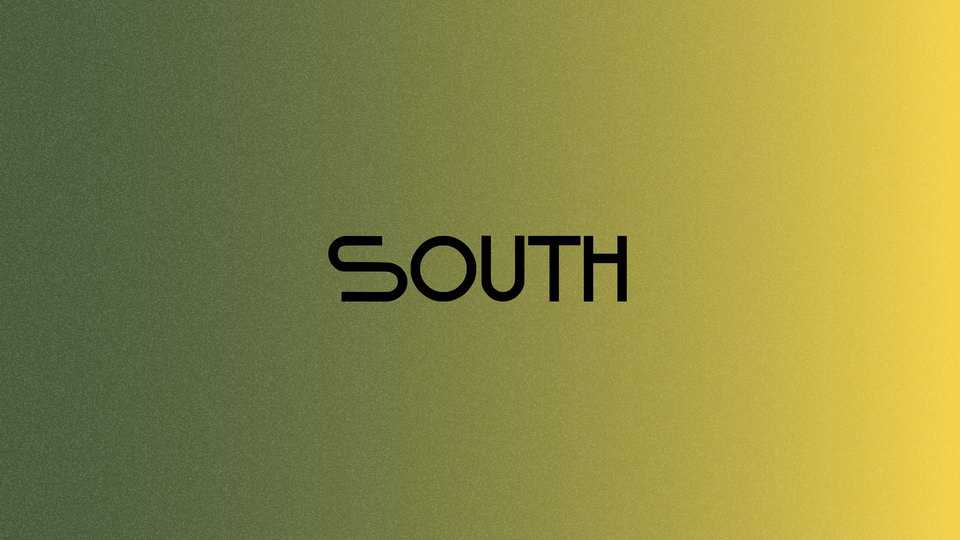
Download South font, a display typeface inspired by Art Deco lettering. South has been designed for display, header, logo, branding and similar applications.
Designer: Eduard Chernov